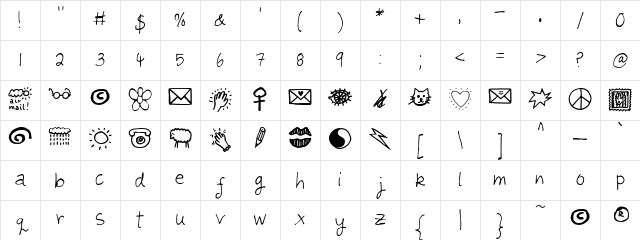
Complete julesgirltalk Regular glyph index. Displaying only characters natively supported by julesgirltalk Regular font.
julesgirltalk is a composed and adaptable typeface that performs quietly and consistently across a wide range of design contexts.